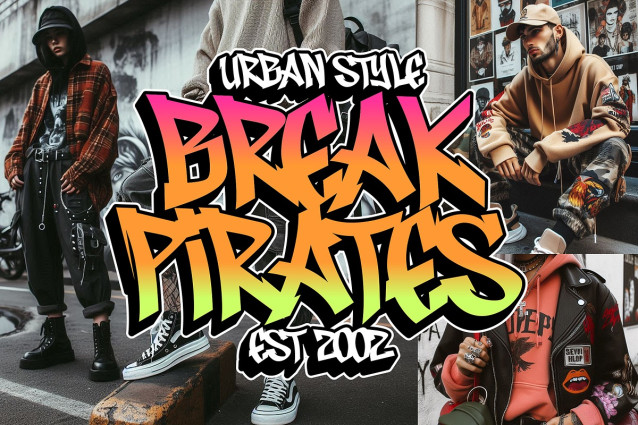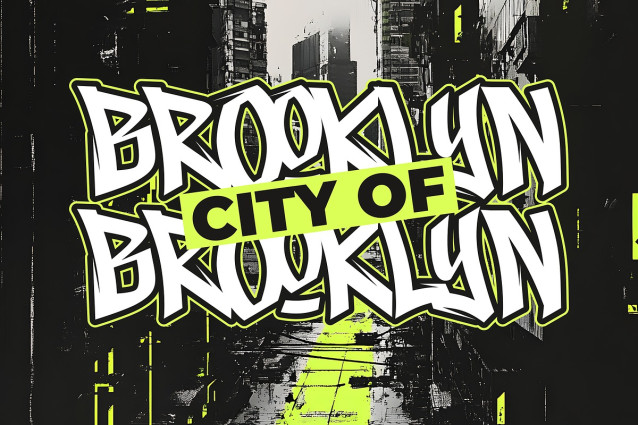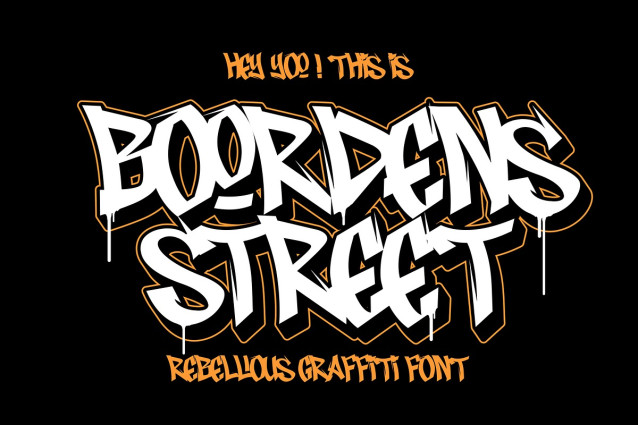
Boordens Street Font
Boordens Street Font is an impactful graffiti font designed to bring bold energy and a street-style attitude to your designs. With its raw, authentic strokes and dynamic characters, this font captures the essence of urban art, making it perfect for projects that need a punch of rebellious flair.
Urban Authenticity: The handcrafted graffiti elements give Boordens Stret a unique, gritty feel that makes it ideal for posters, album covers, branding, and more.
Bold Impact: Its thick, daring strokes ensure that every word stands out, grabbing attention instantly. Whether you’re creating for digital or print, Boordens Street will give your work a commanding presence.
Boordens Street is the go-to choice for designers looking to infuse their projects with street art’s vibrant, rebellious energy.